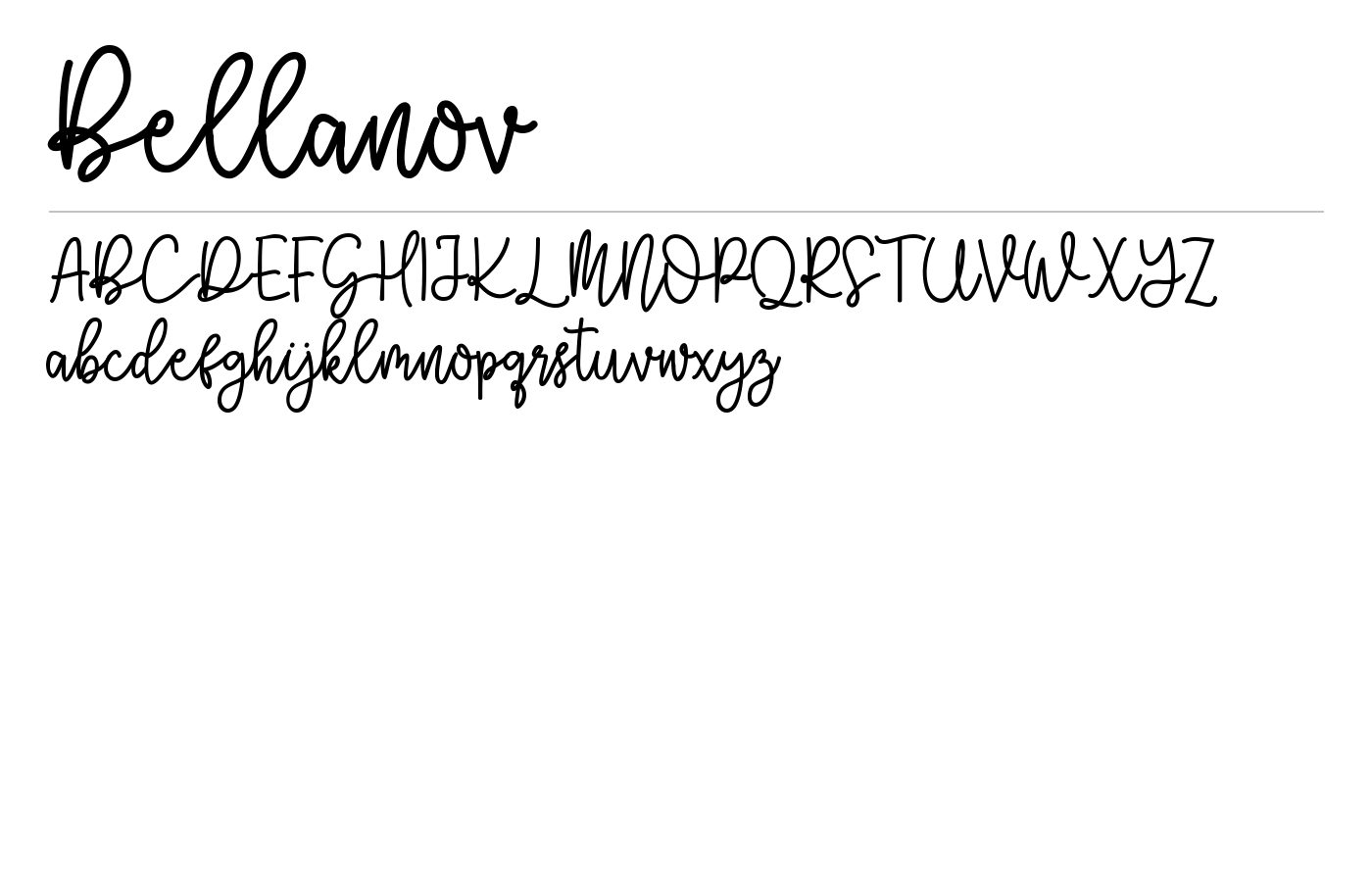
Bellanov is a lively handwritten script font with a casual, playful charm. Its thin, flowing strokes and upright letterforms create an inviting, approachable feel, making it perfect for personal branding, invitations, and creative projects that seek a friendly, authentic touch. This font works well in both headlines and short text where a warm, informal style is desired.
Bellanov Font